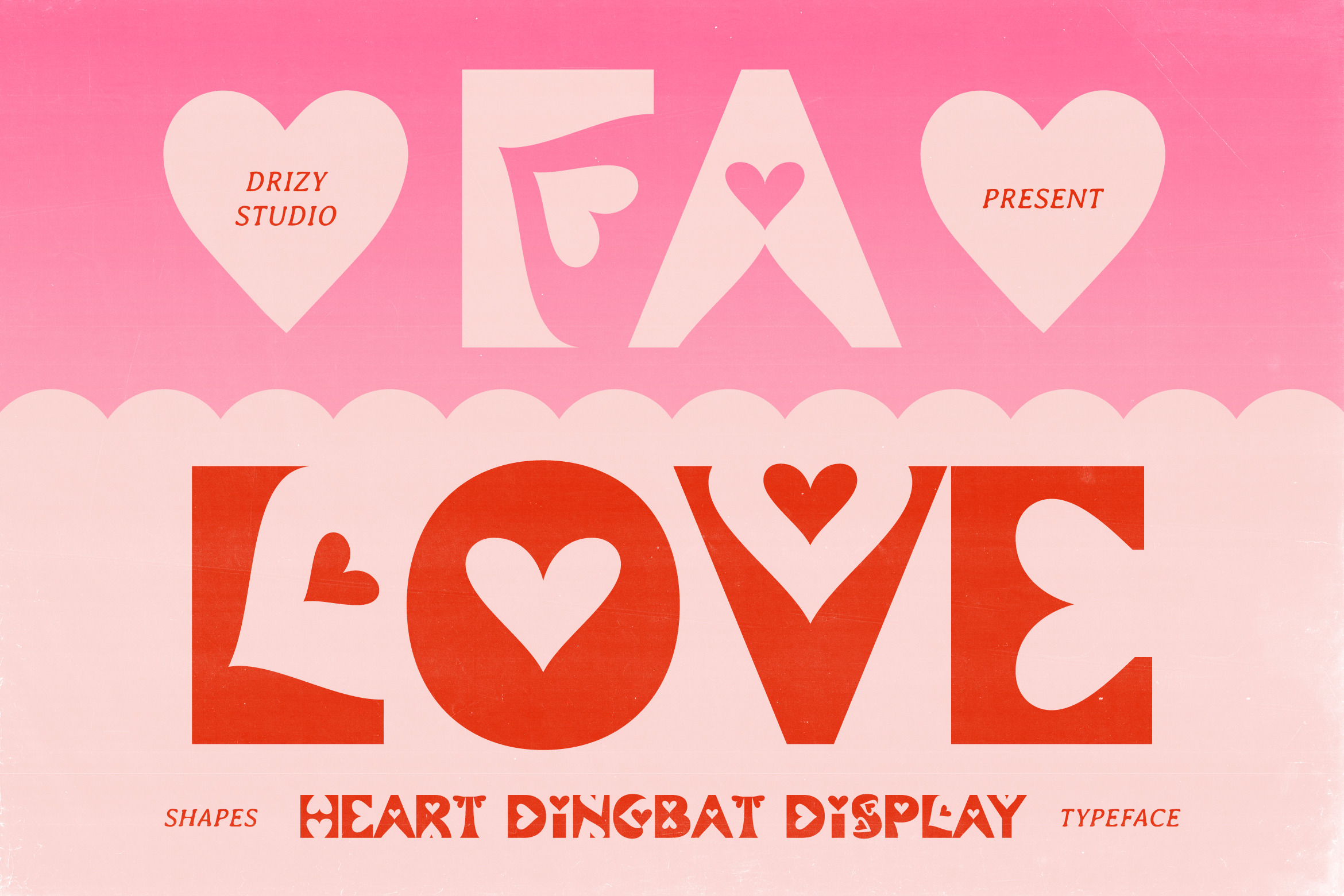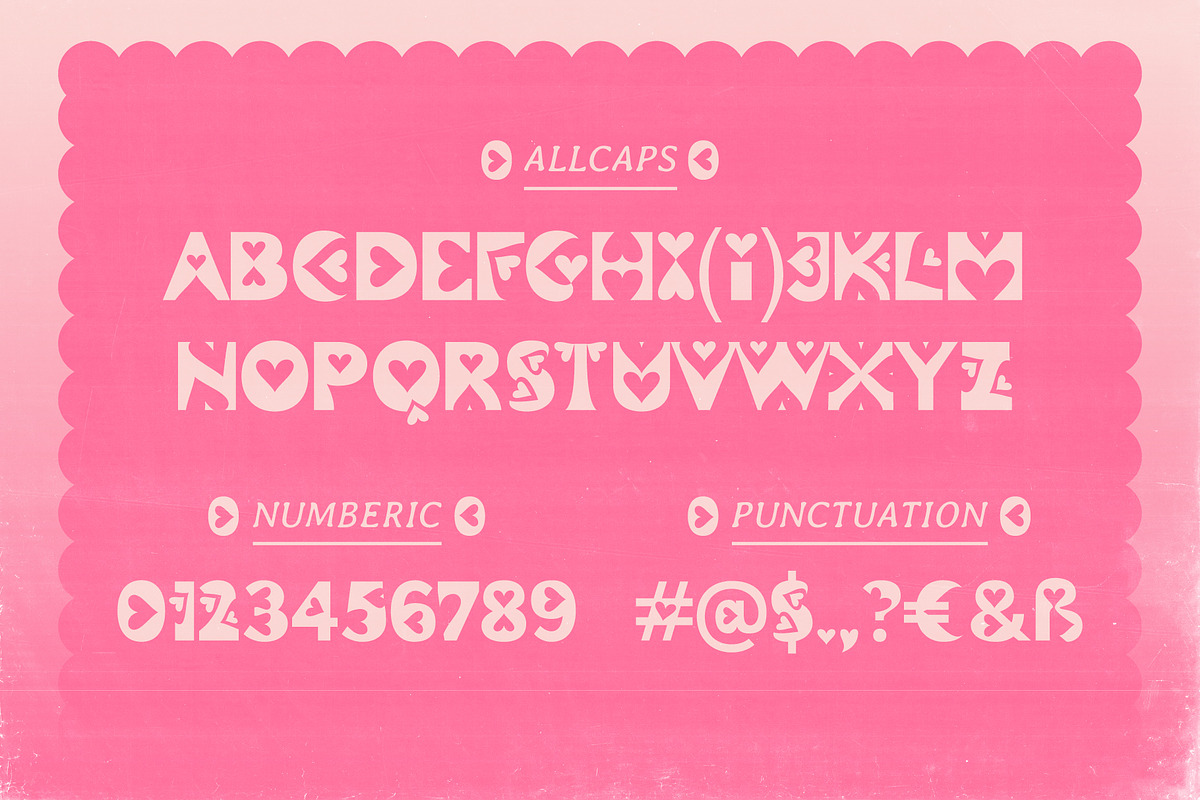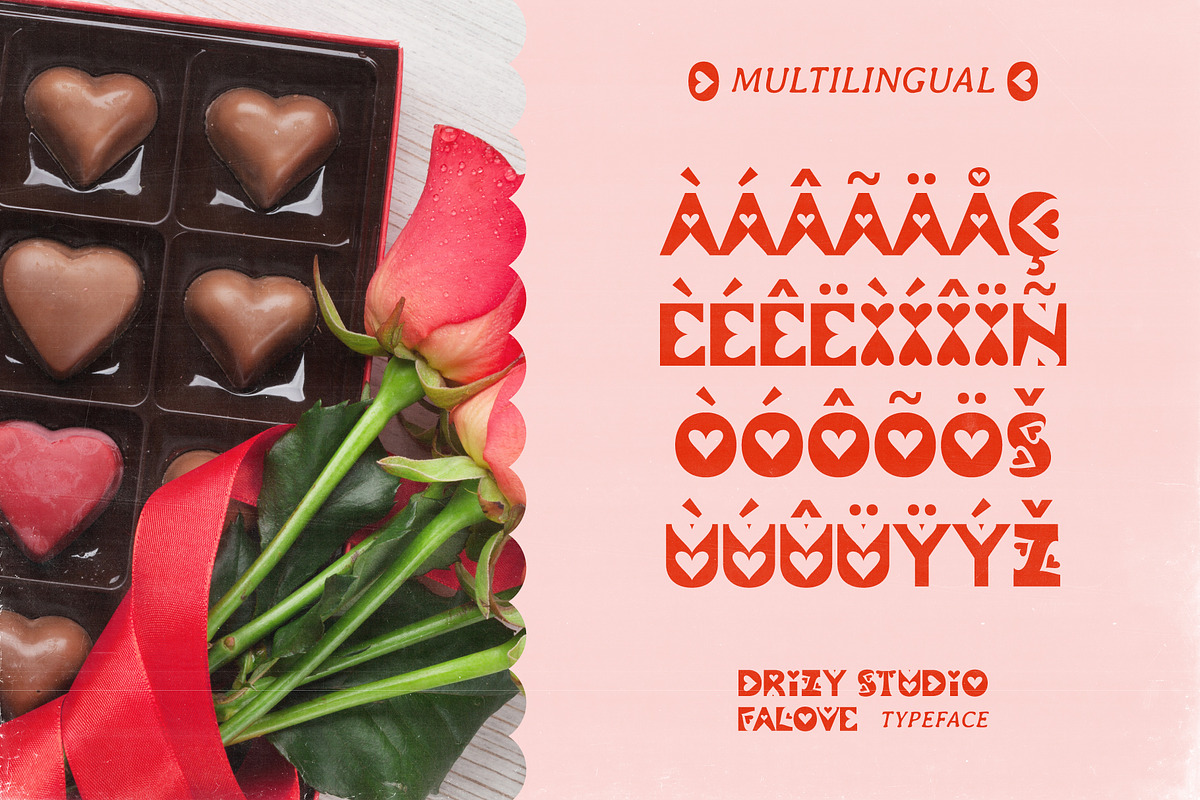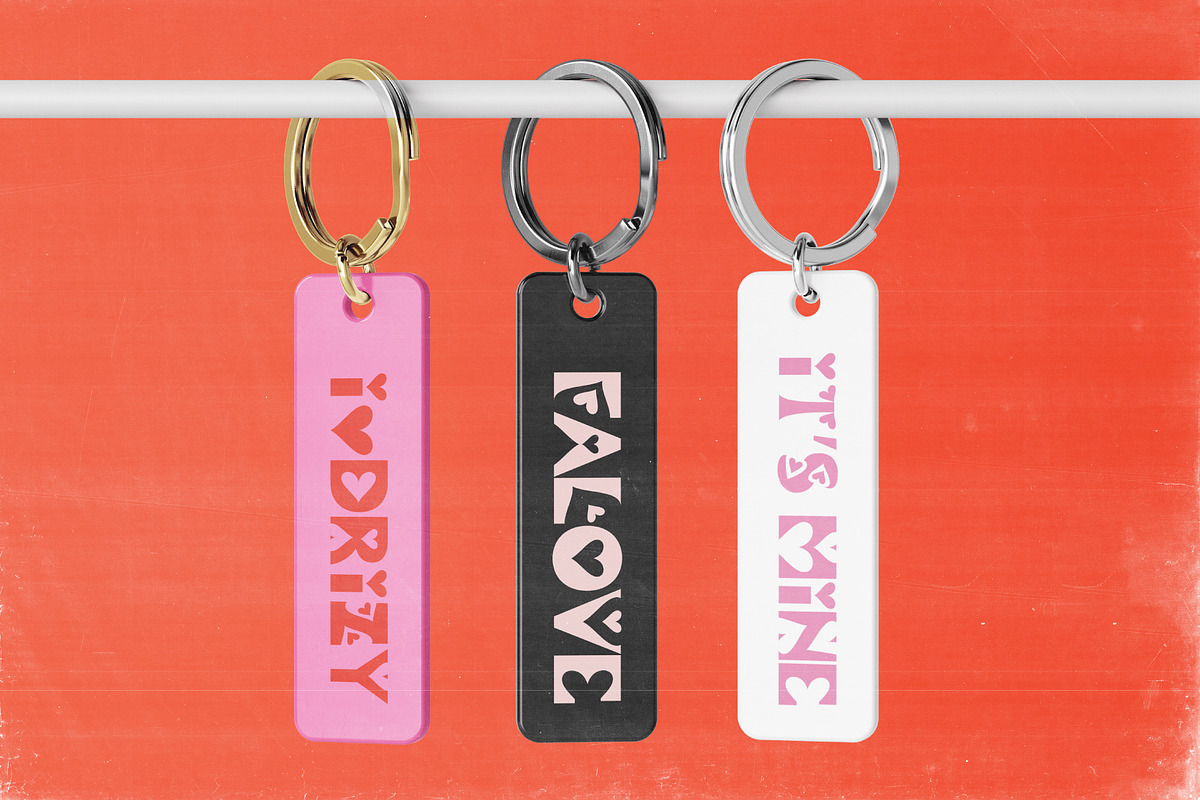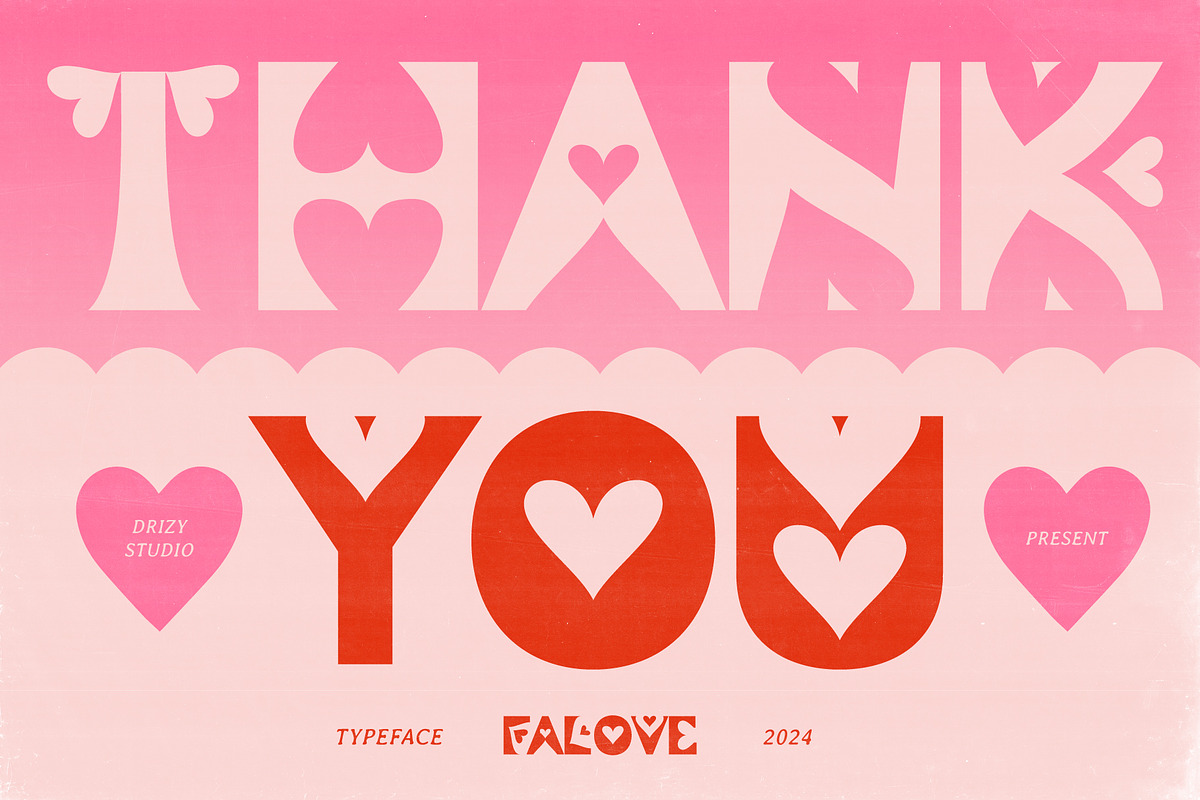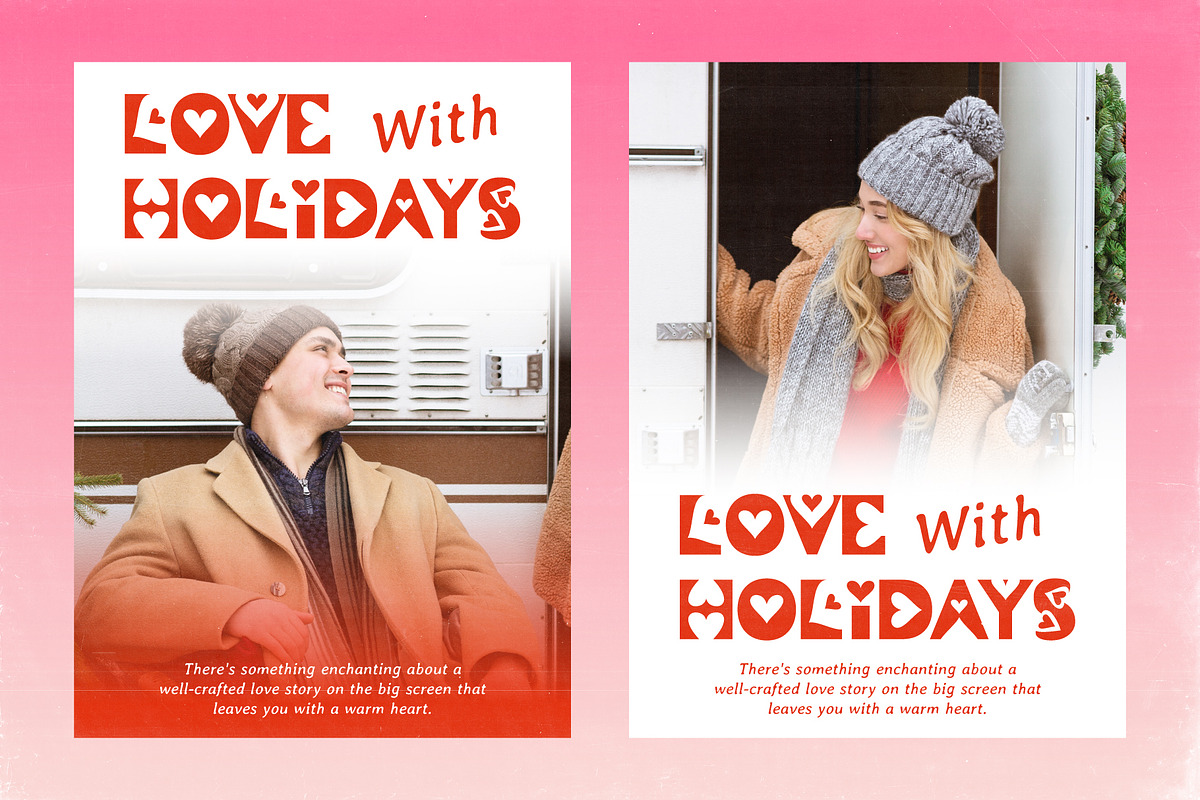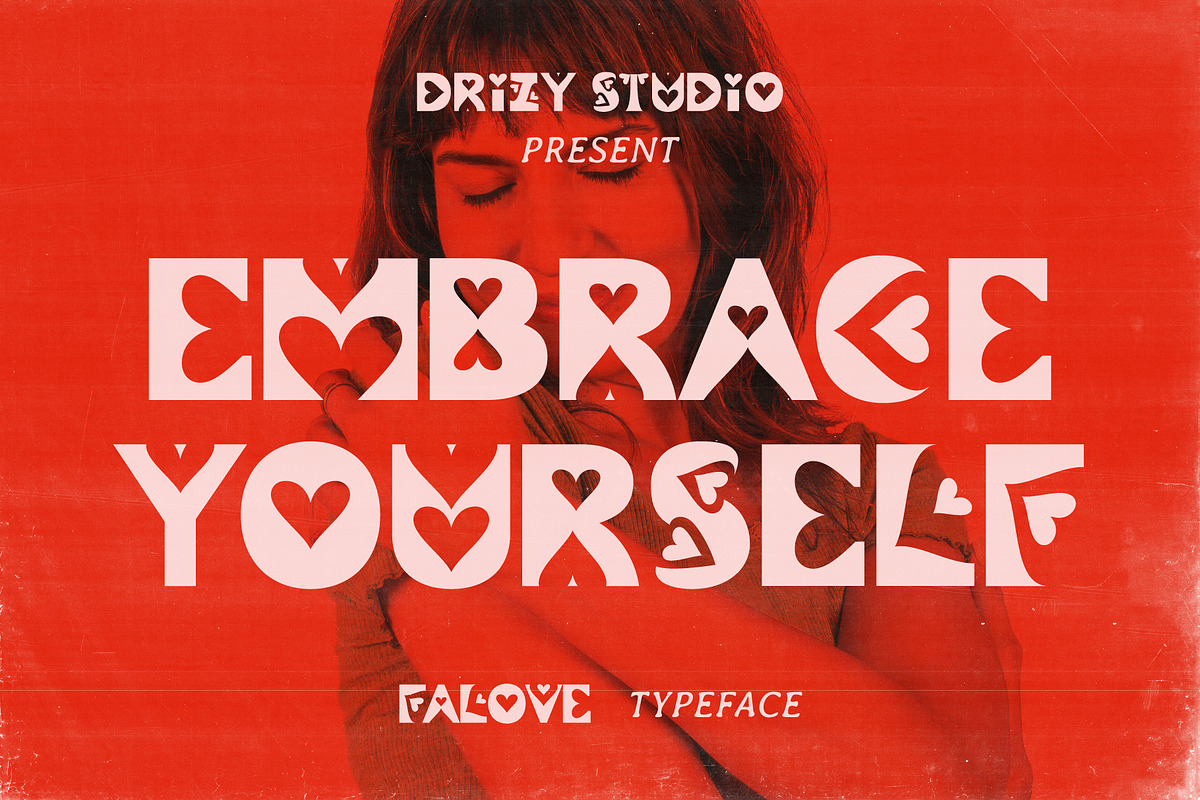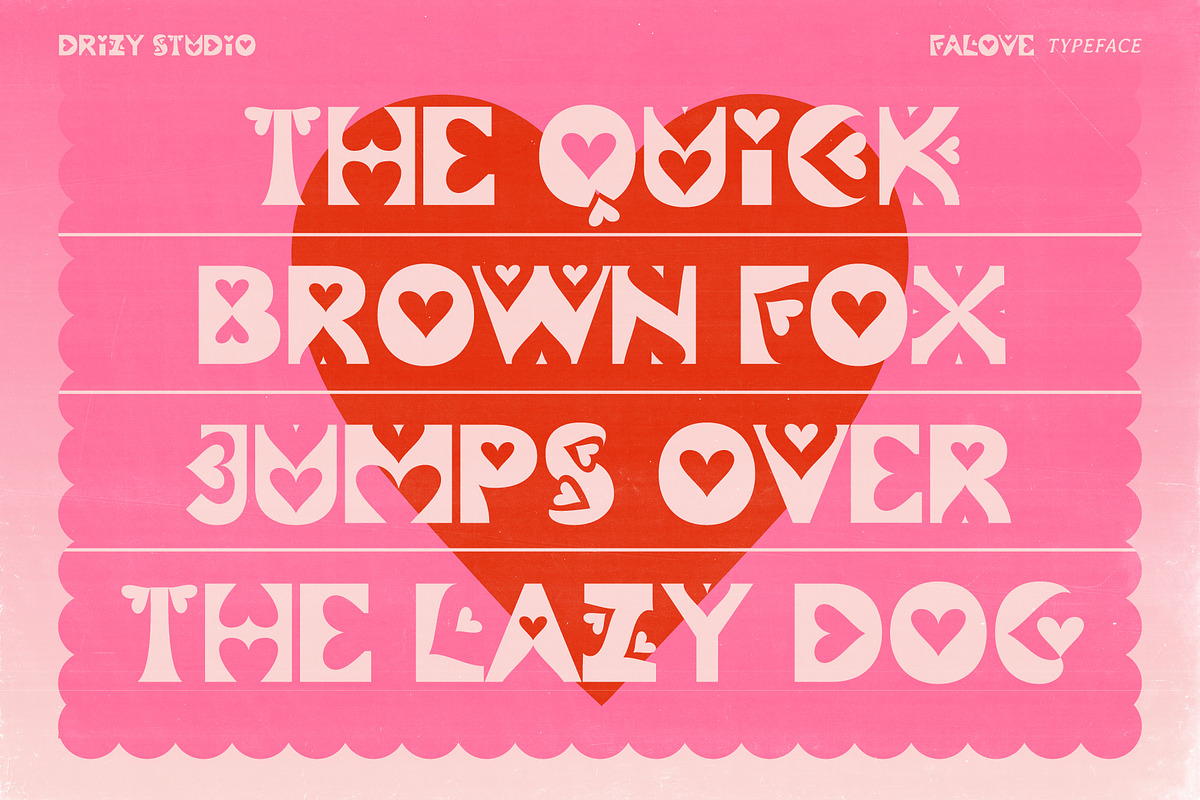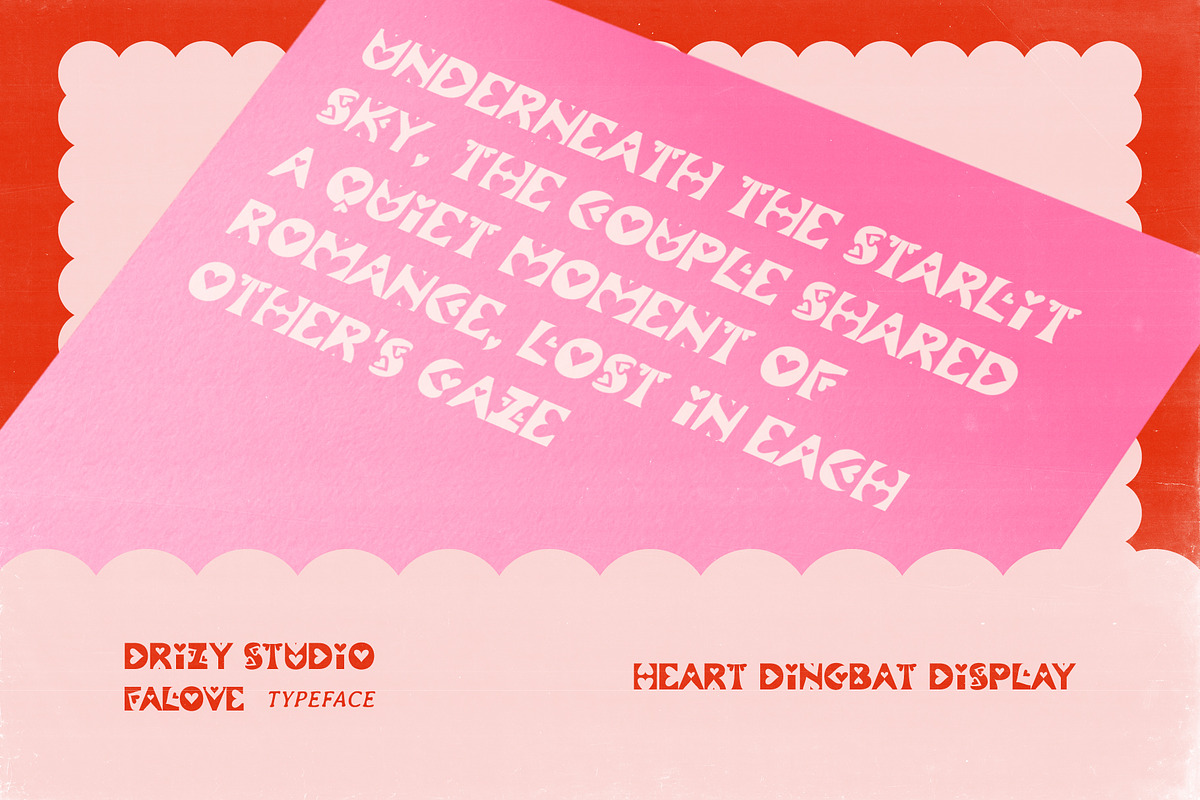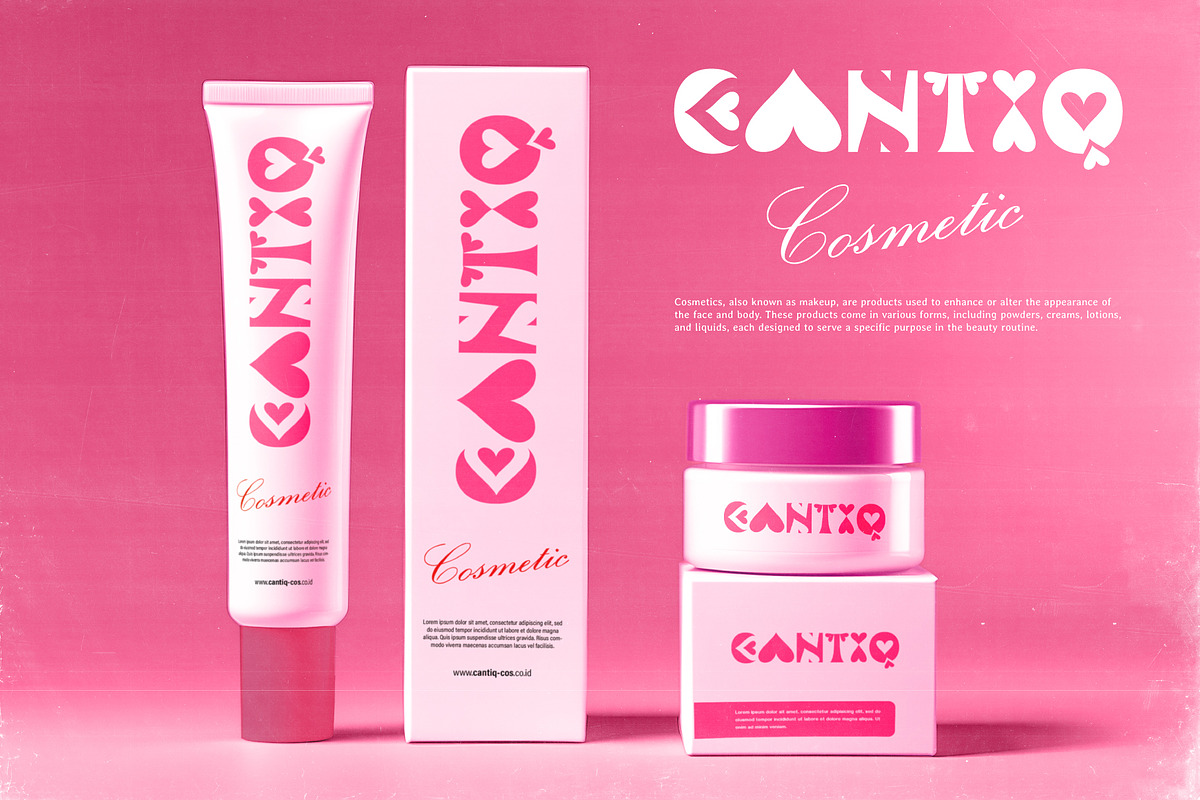
Falove - Heart Dingbat Display Font
Indulge in the enchanting world of love and romance with Falove - Heart Dingbat Display Font. Immerse your designs in the tender and sweet vibes reminiscent of your favorite Valentine's Day movies. This charming typeface is a visual symphony of love, adorned with heart-shaped glyphs that evoke the warm, fuzzy feelings of a romance.
Falove features: Character Set Punctuation & Numbers Multilingual Support
Elevate and explore the design possibilities with this Heart Dingbat Font!